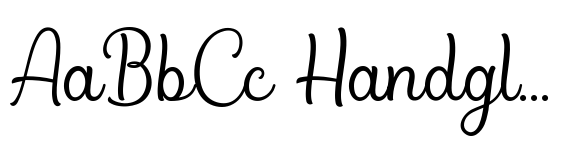
Bradlay
by Sabrcreative
The Bradlay Font Family was designed by Irpan Maulana and published by Sabrcreative. Bradlay contains 1 styles. More about this family
Discover the allure of exquisite script typography with the Bradlay Script Font. Infused with timeless sophistication, this typeface effortlessly captures the essence of graceful hand-lettering, making it an exceptional choice for projects that demand a touch of elegance.
Designers: Irpan Maulana
Foundry: Sabrcreative